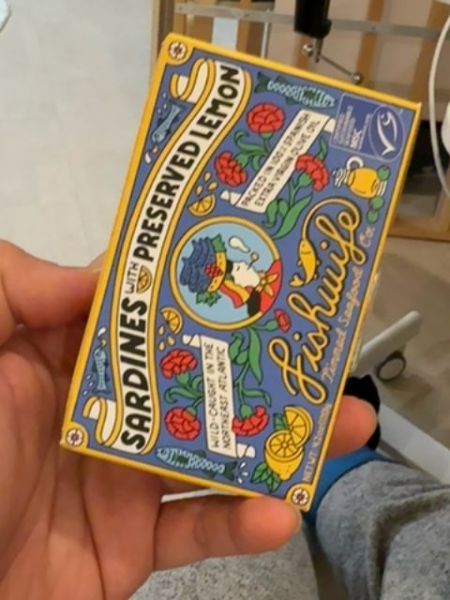
Fishwife
A product containing sardines with preserved lemon, intended for consumption.
The typography features bold, uppercase lettering for the primary product name, evoking a sense of authenticity and tradition. Decorative script is used for accents, adding a playful and whimsical feel. Overall, the typography complements the vintage aesthetic of the packaging.
The packaging has a vibrant and vintage-inspired design, featuring illustrations of lemons and flowers. The colors are bright and eye-catching, with a blue background complemented by red, yellow, and green accents.